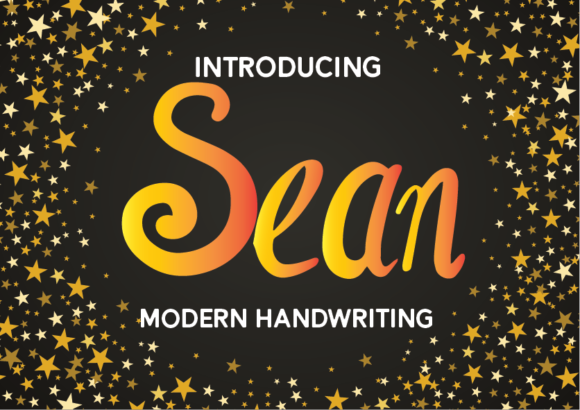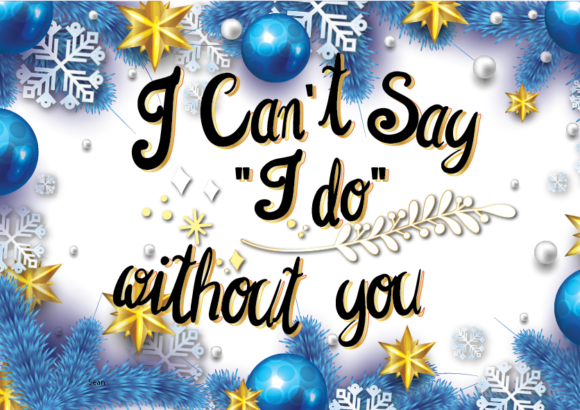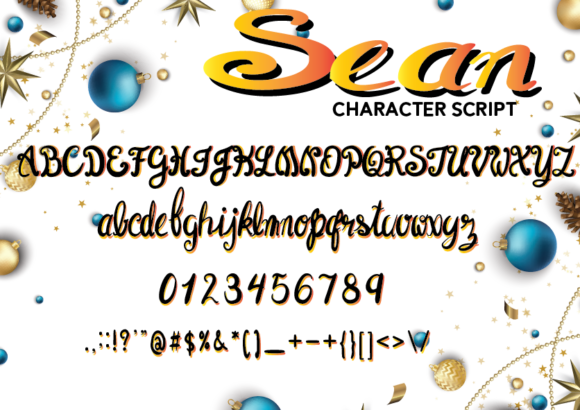
Sean Font
About Sean Font
Sean is a casual & fun handwritten font. This font is the perfect fit for any design project that requires a personalized appearance!